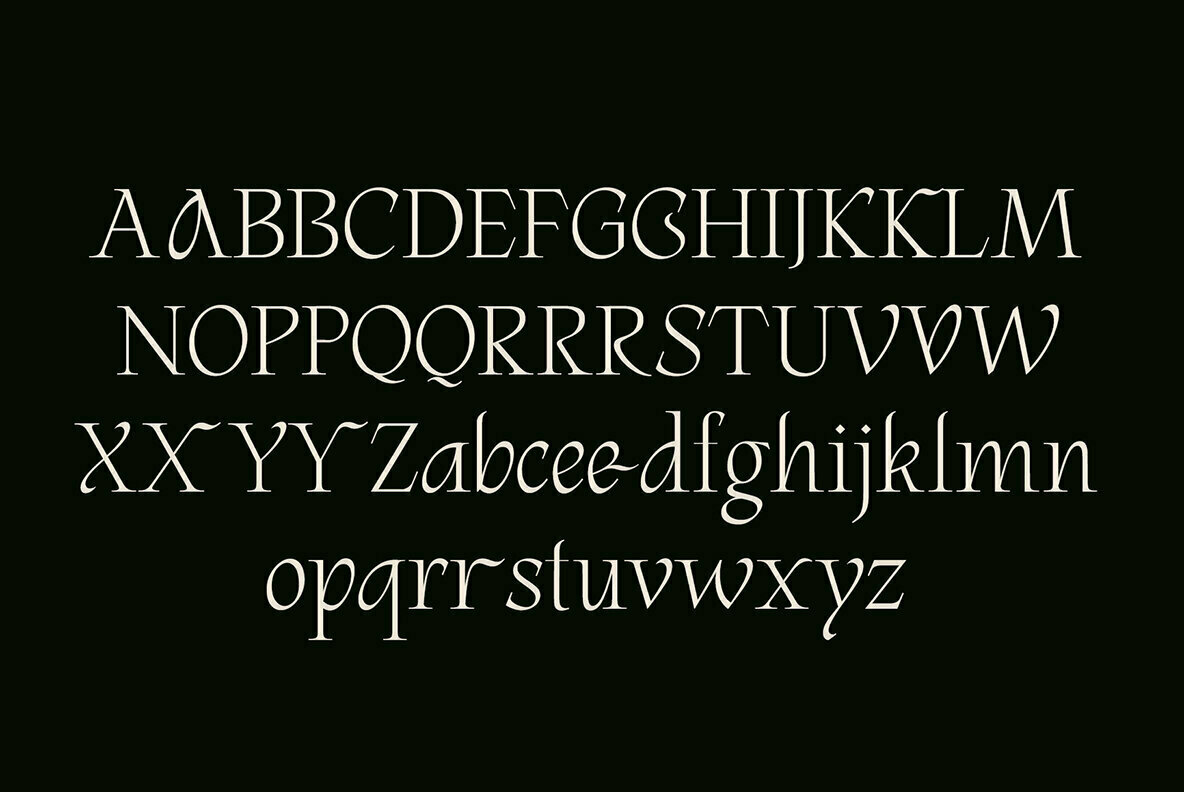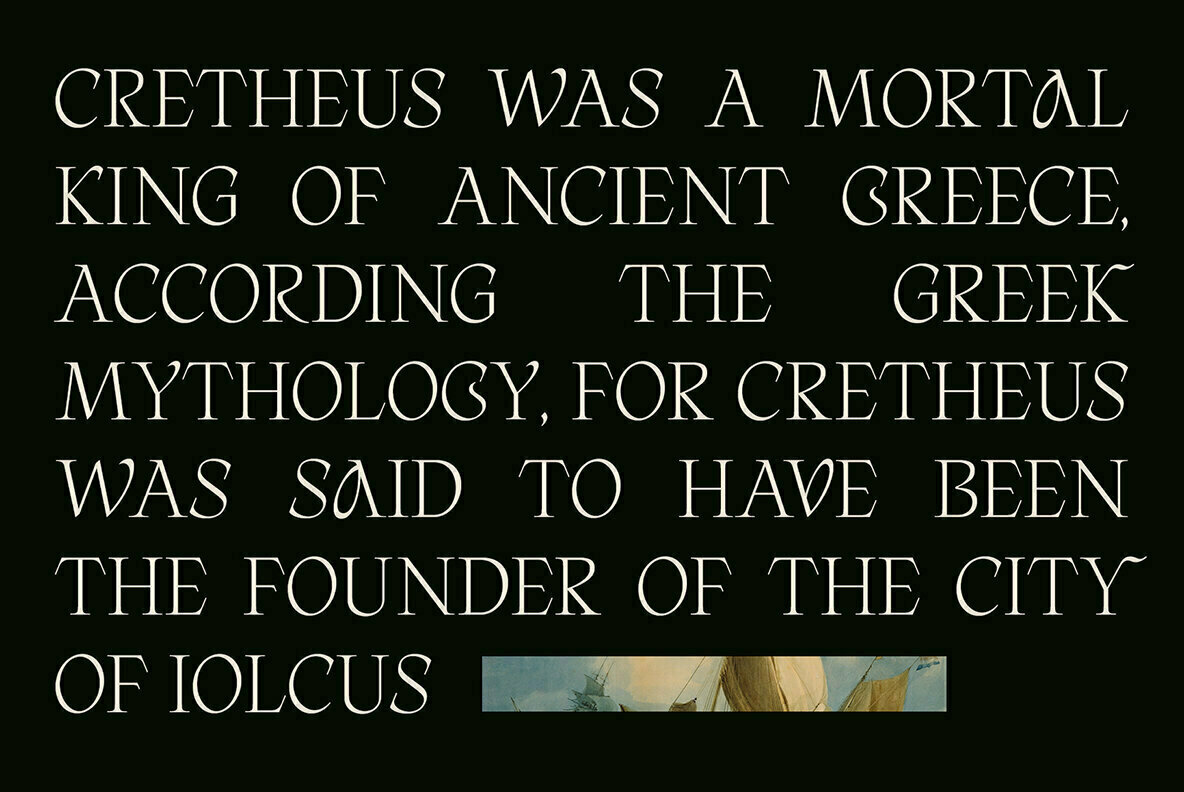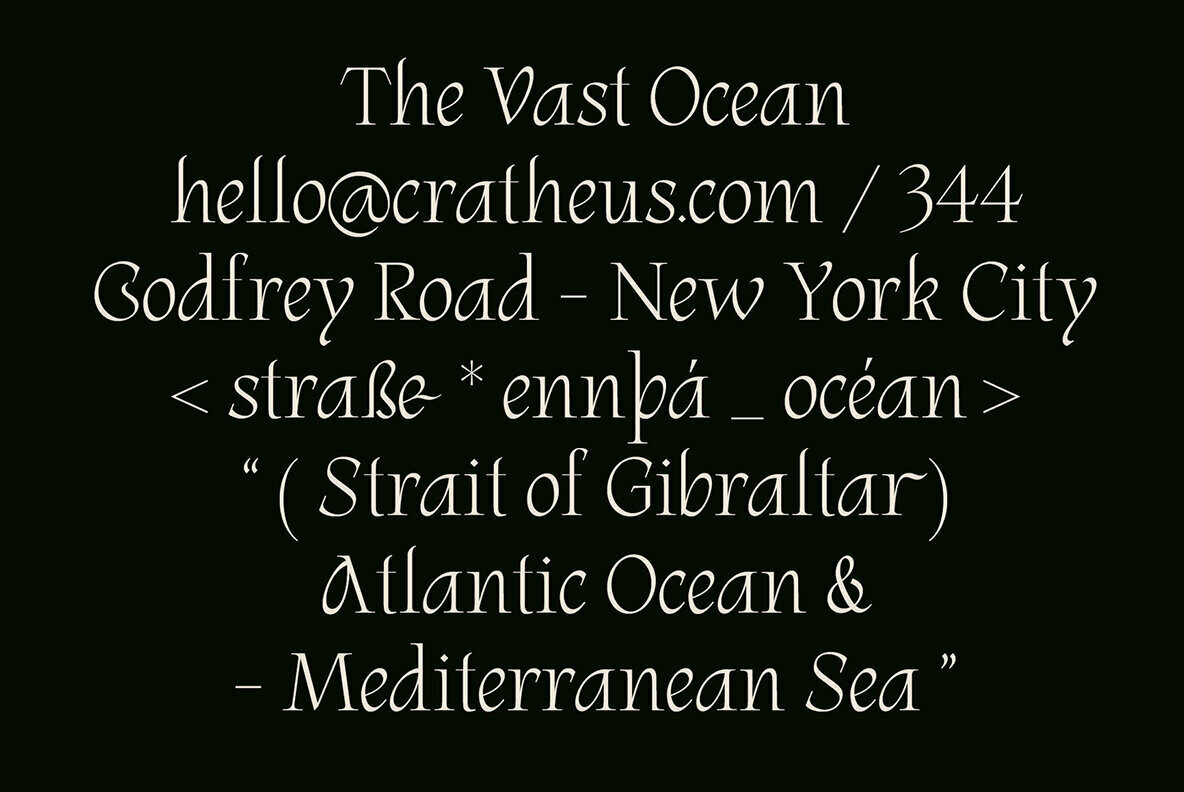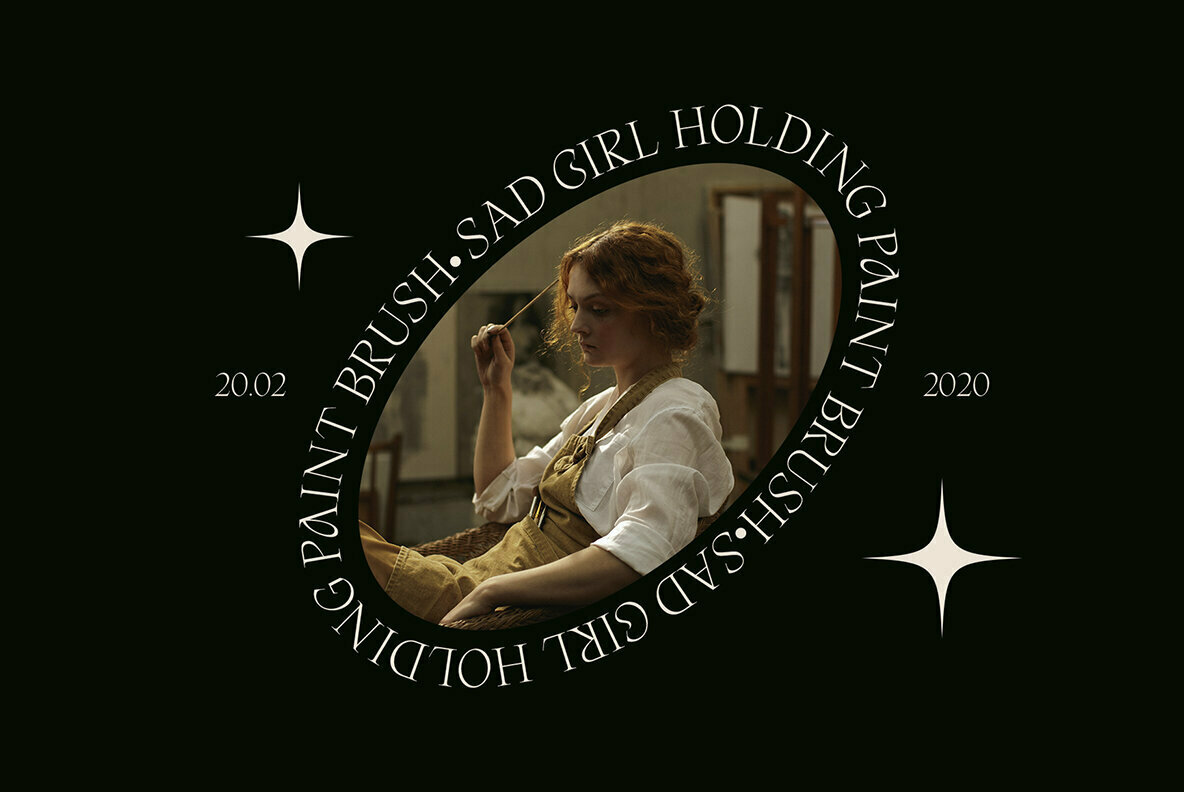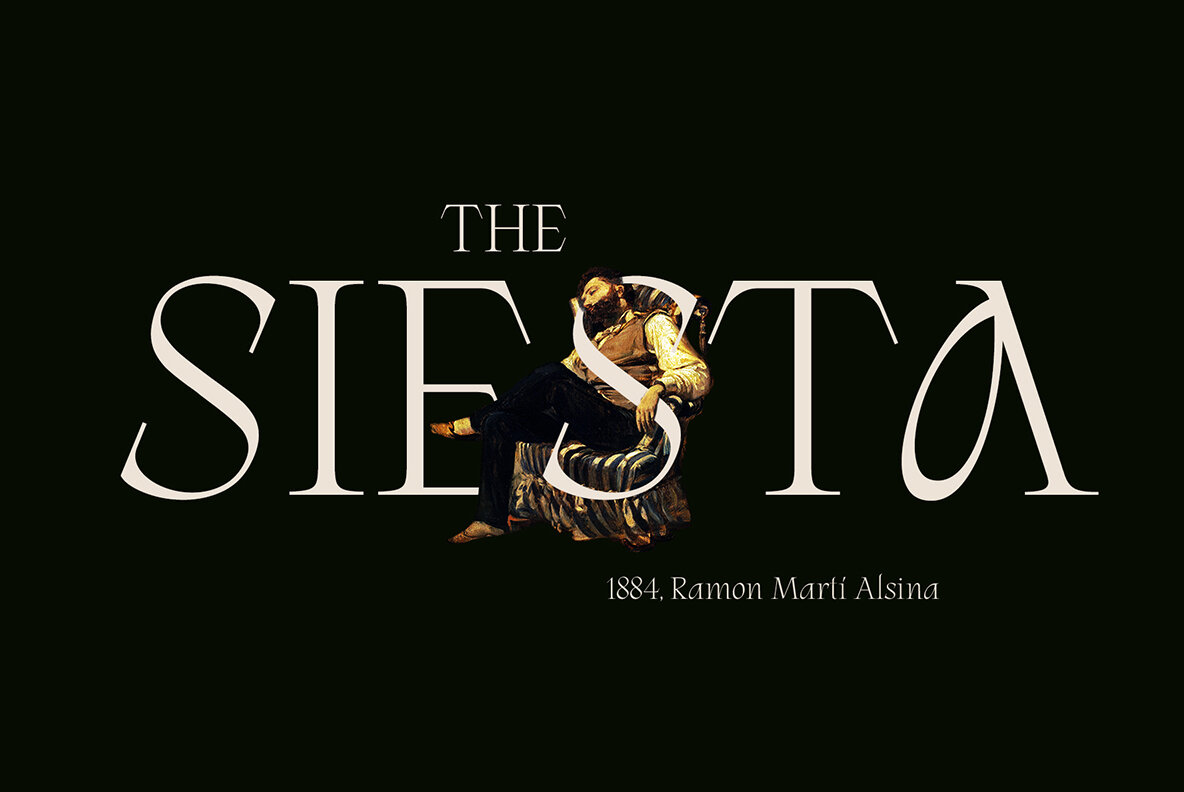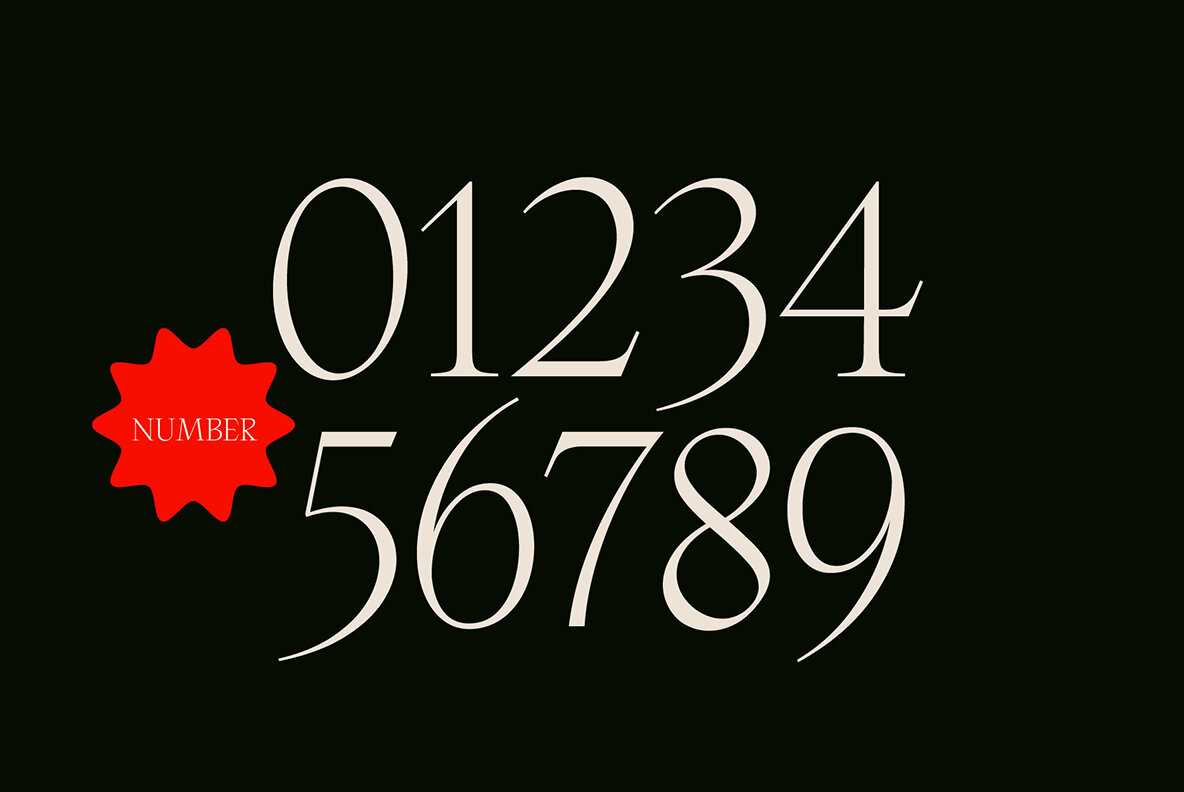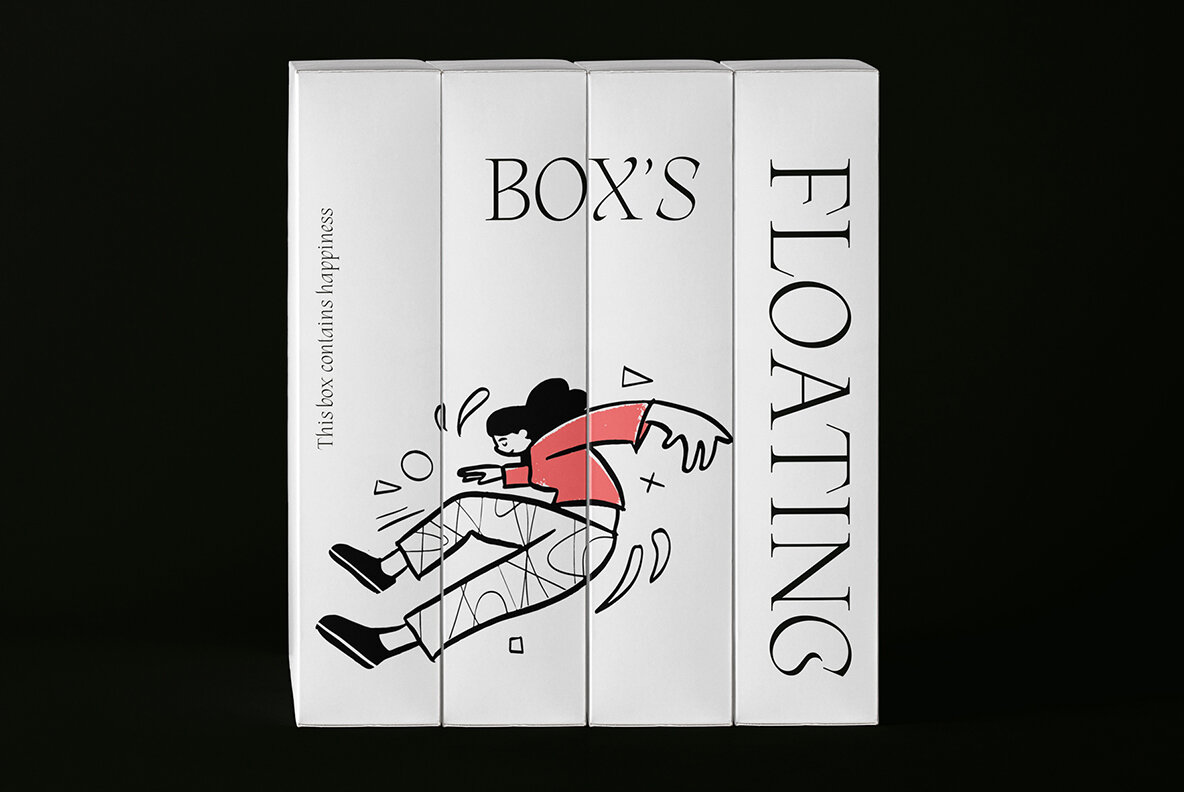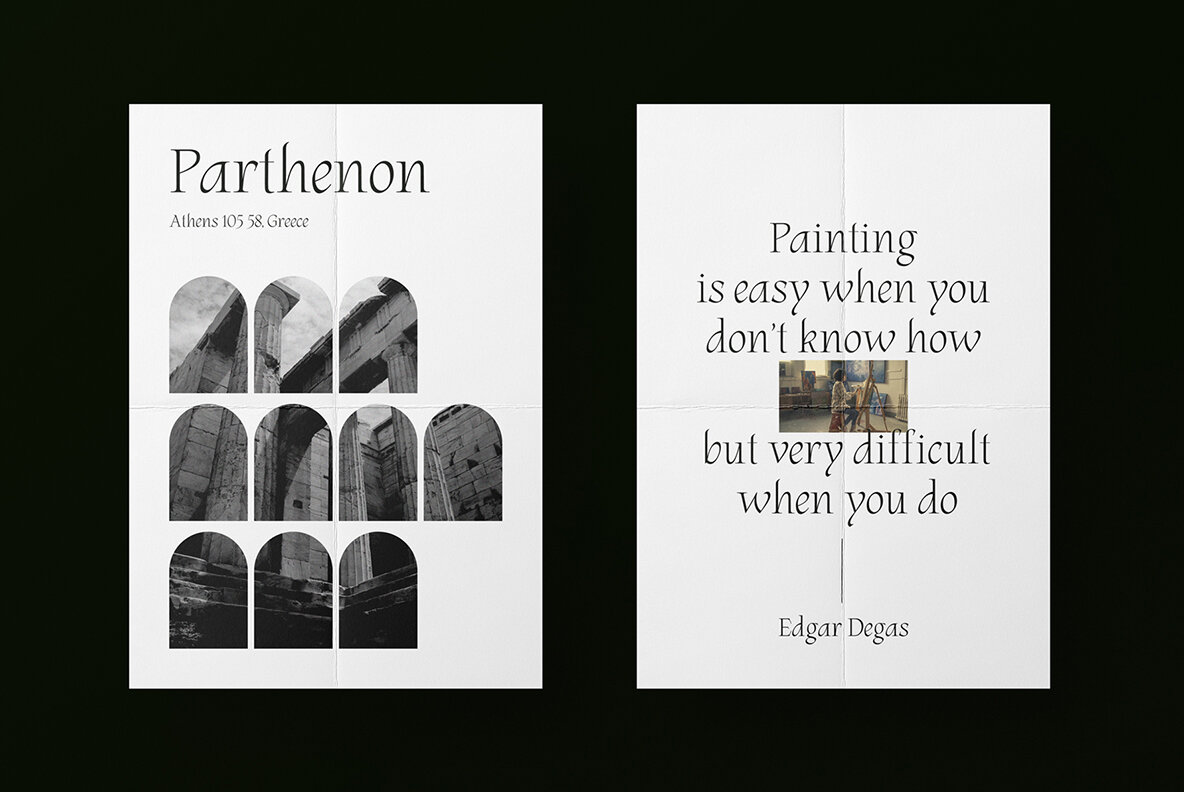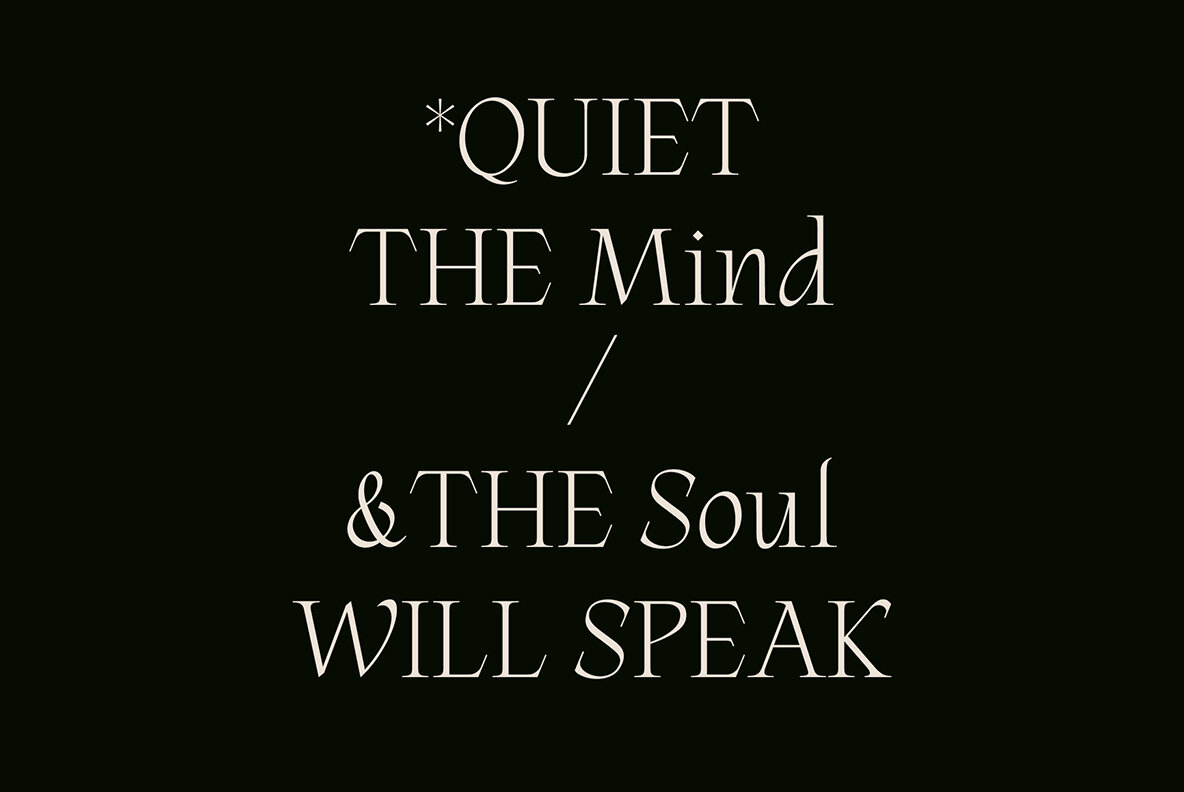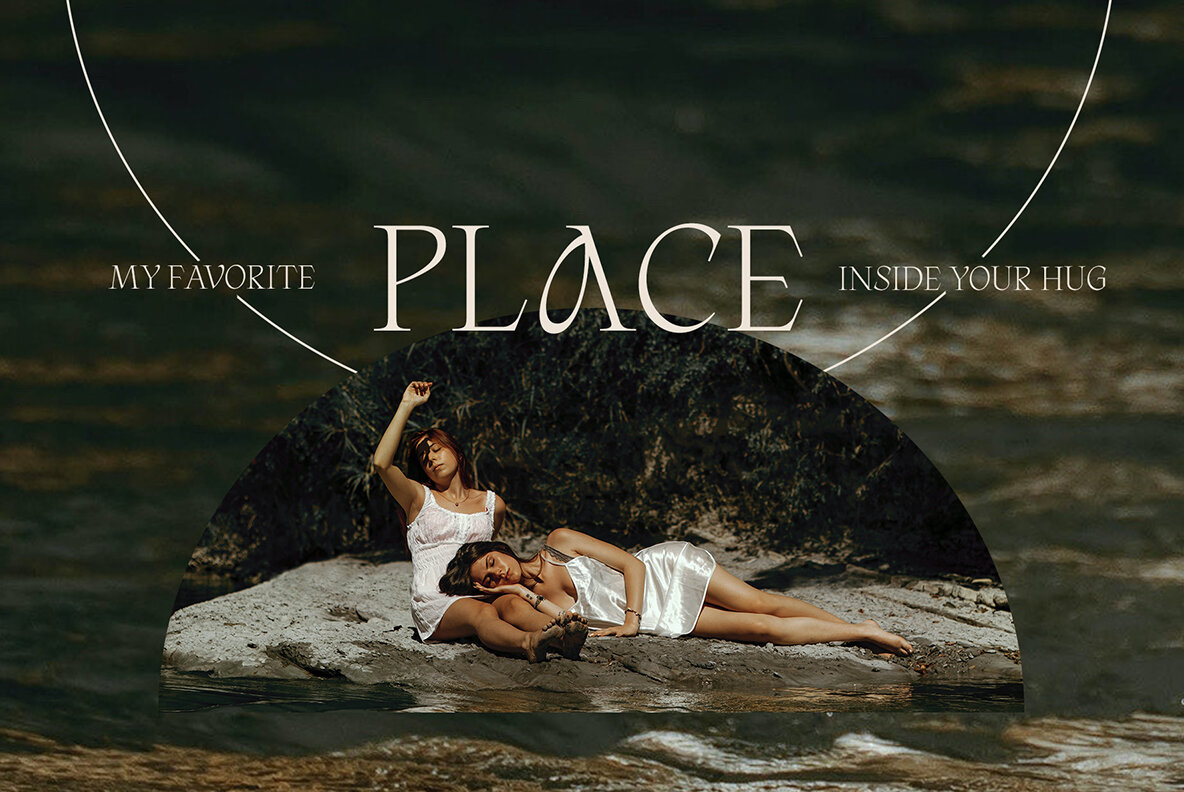
ED Cretheus Font
ED Cretheus Regular
ED Cretheus is an embodiment of elegance in the world of display serifs. This sophisticated font harmoniously merges modern roman and celtic influences, offering a unique aesthetic for a multitude of design applications. Its refined style makes it a compelling choice for graphic designers looking to impart a sense of luxury and tradition in their projects.ED Cretheus: A Fusion of Modern Roman and Celtic Styles
Whether you're crafting a brand identity, designing a captivating poster, or working on a fashion editorial, ED Cretheus meets a broad spectrum of design requirements. It also finds its place in book layouts, social media graphics, and logo creation, making it a versatile tool for any designer's toolkit.